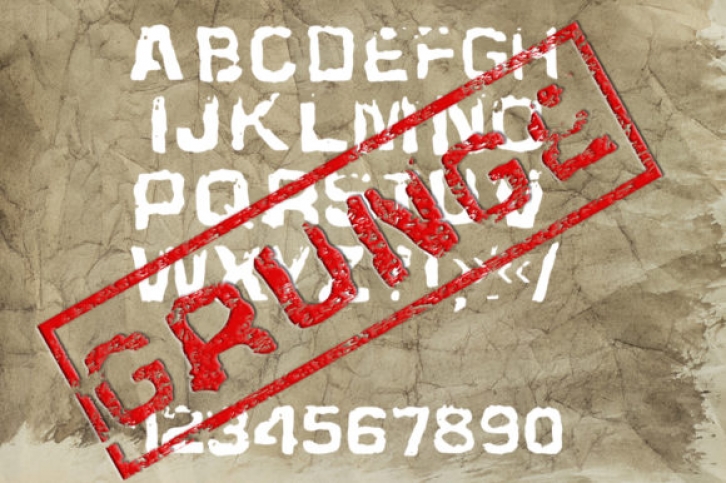
Grunge is a cool, rough textured display font. This original and bold look will appeal to a wide range of crafty ideas, from letterheads and titles, to stationery.